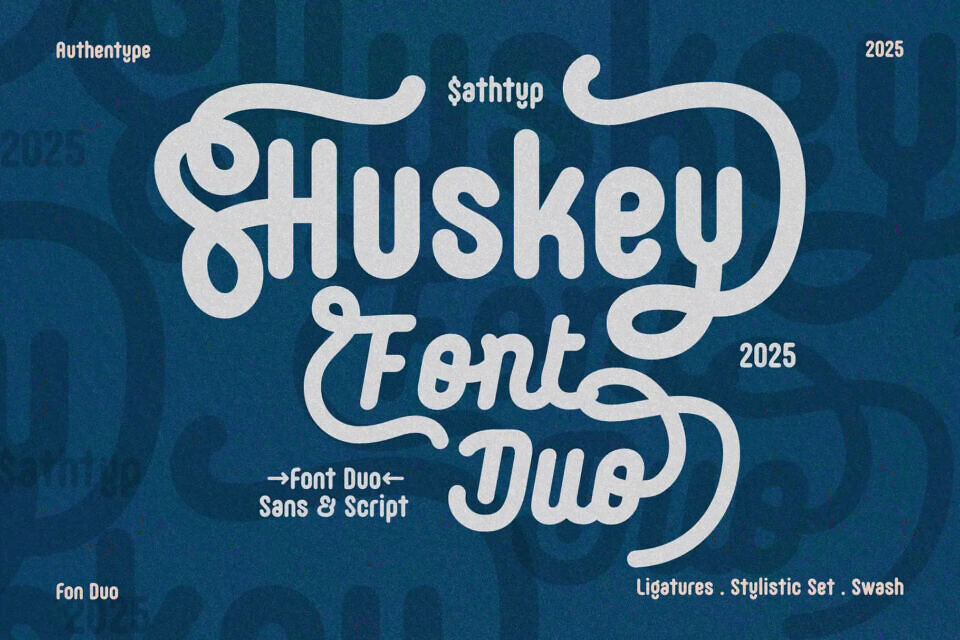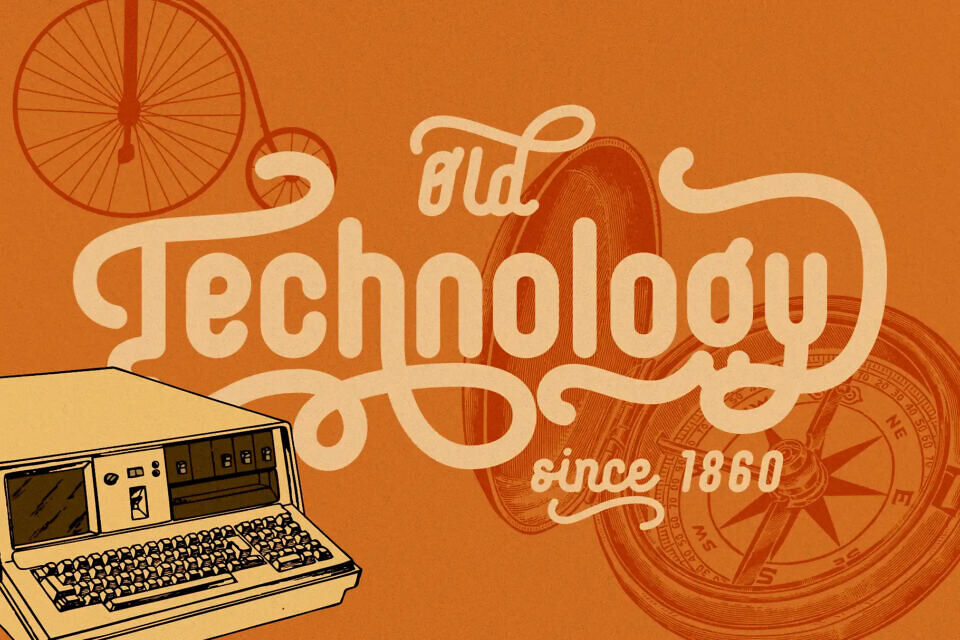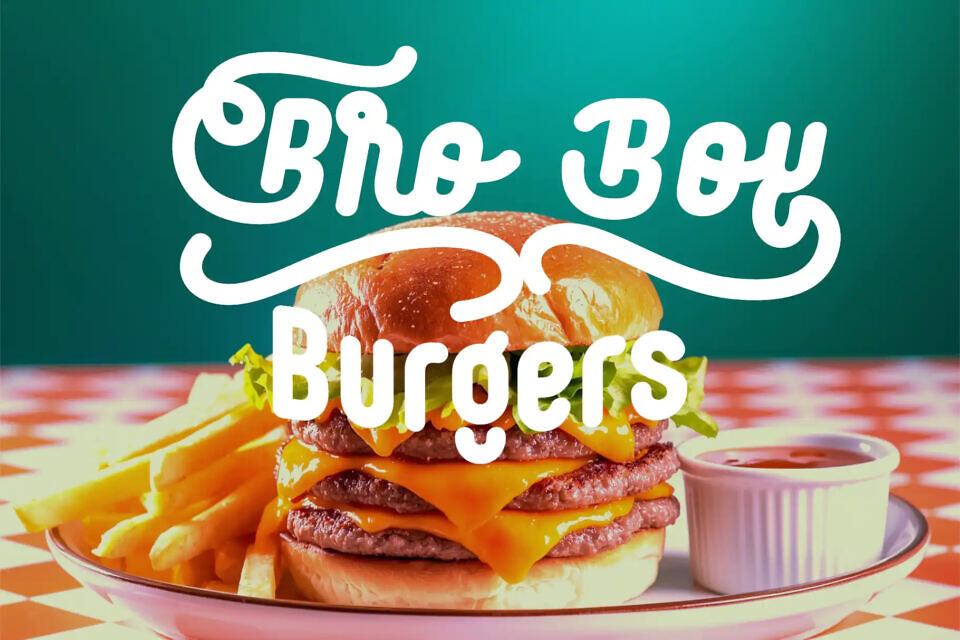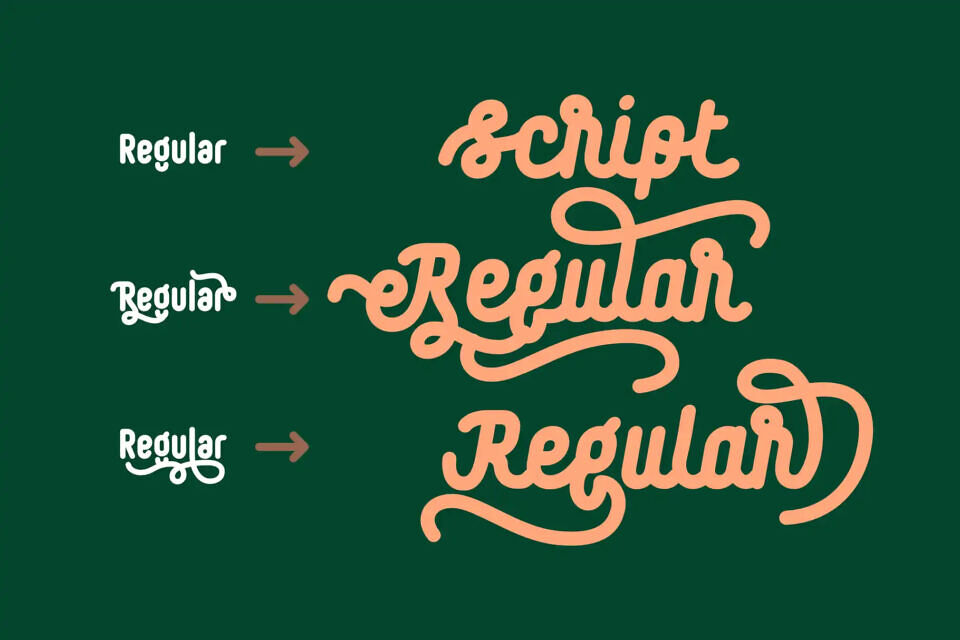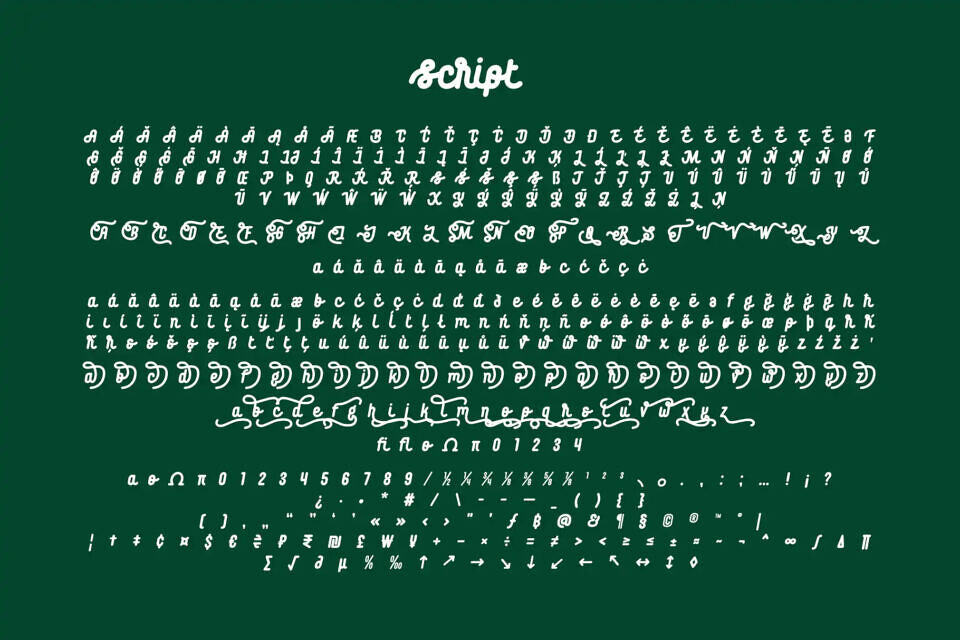
Huskey Script Font
Huskey is a versatile logo font duo combining a clean, modern sans-serif with a warm, handcrafted script. Both styles share the same structural DNA, offering seamless pairing and a unified typographic voice.
Designed for brands that need clarity with personality, Huskey performs beautifully across logo systems, packaging, headlines, and editorial layouts. With its balanced construction and intentional harmony, Huskey delivers a cohesive toolkit for contemporary identity design.